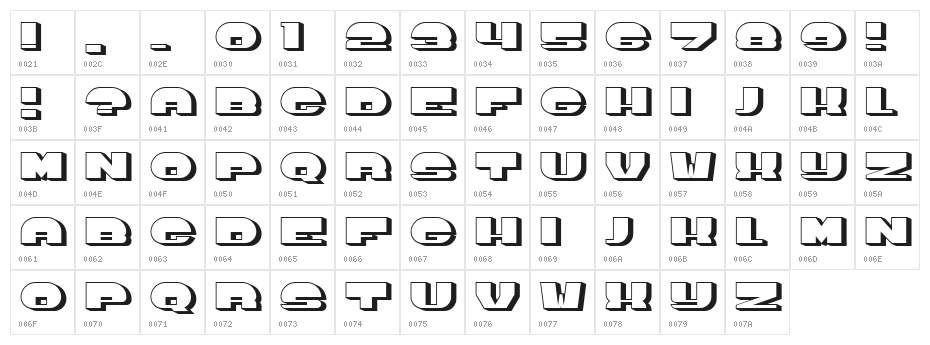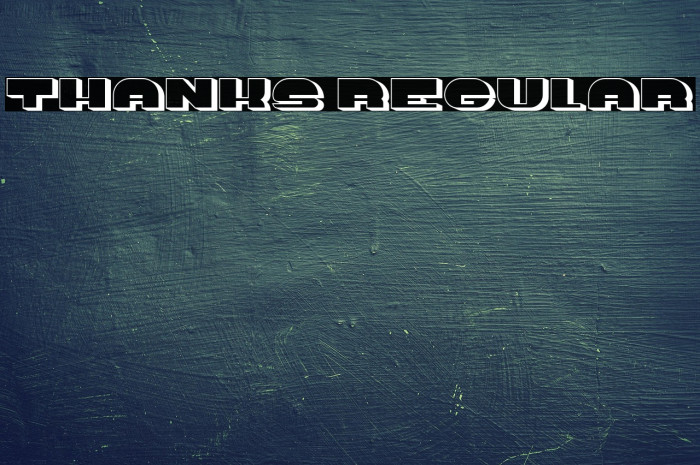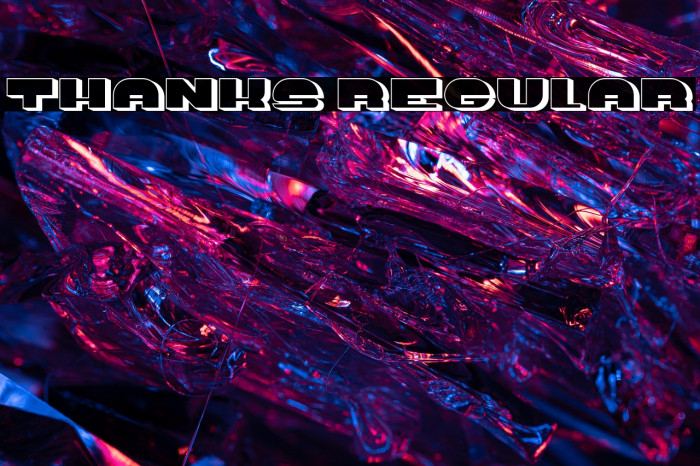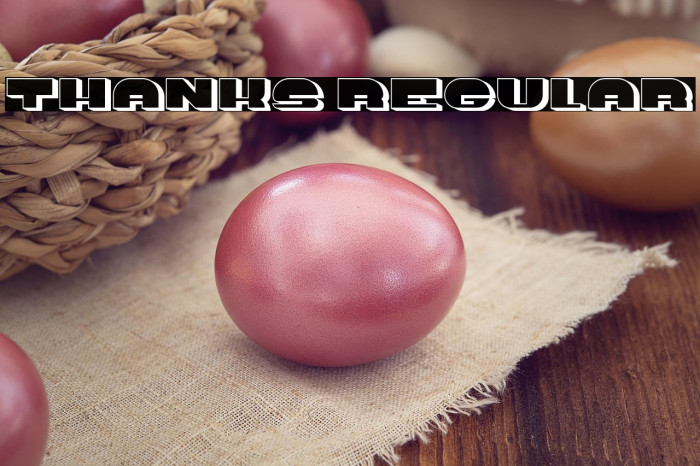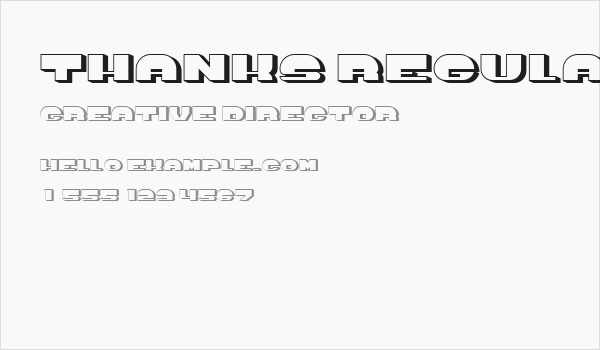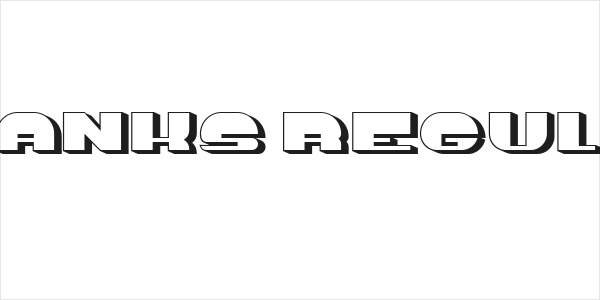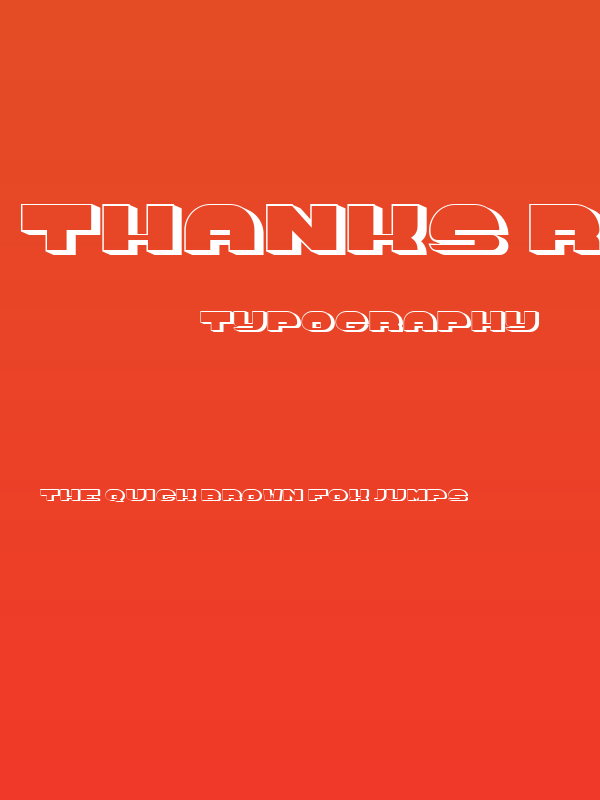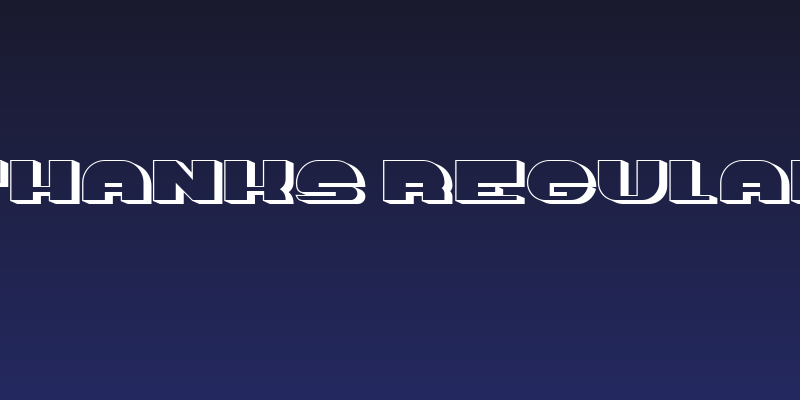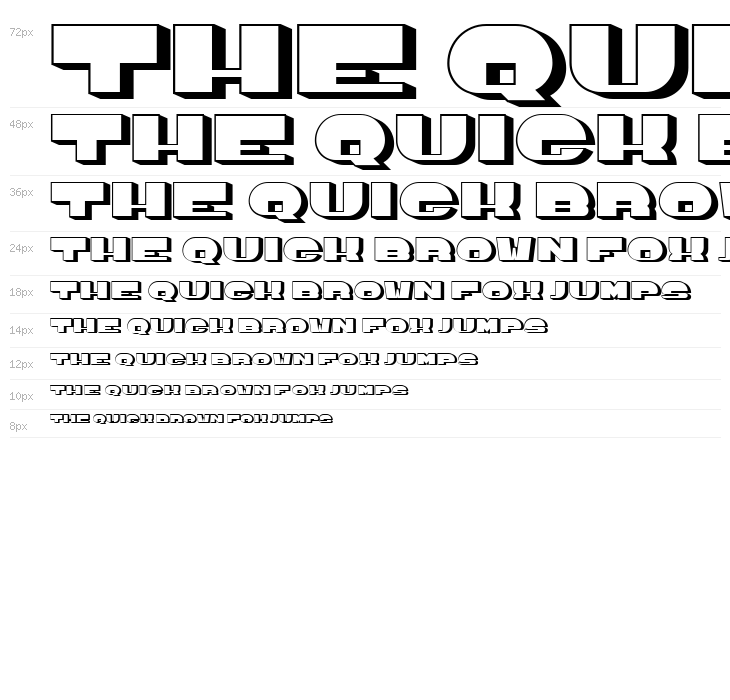
Thanks Regular Font
Thanks Regular Description
This font features a bold and striking design with a three-dimensional effect, giving each character a sense of depth and volume. The letters are uppercase and have a blocky, geometric style with sharp edges and clean lines. The shadowing effect adds a dynamic and modern touch, making the font stand out. The characters are evenly spaced, contributing to a balanced and cohesive appearance. This font is ideal for creating impactful headlines or logos that require a strong visual presence.
| Proposed Projects | Ideal for branding, poster design, video game titles, and any project needing a bold, eye-catching typeface. |